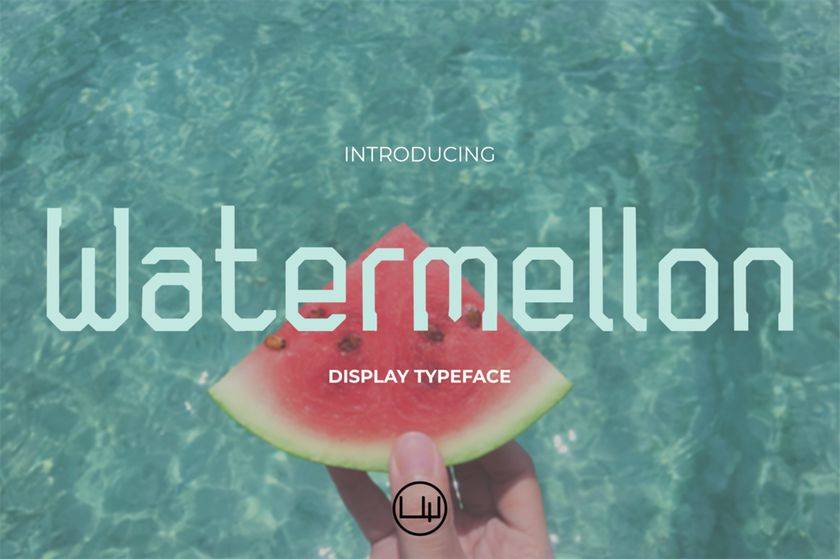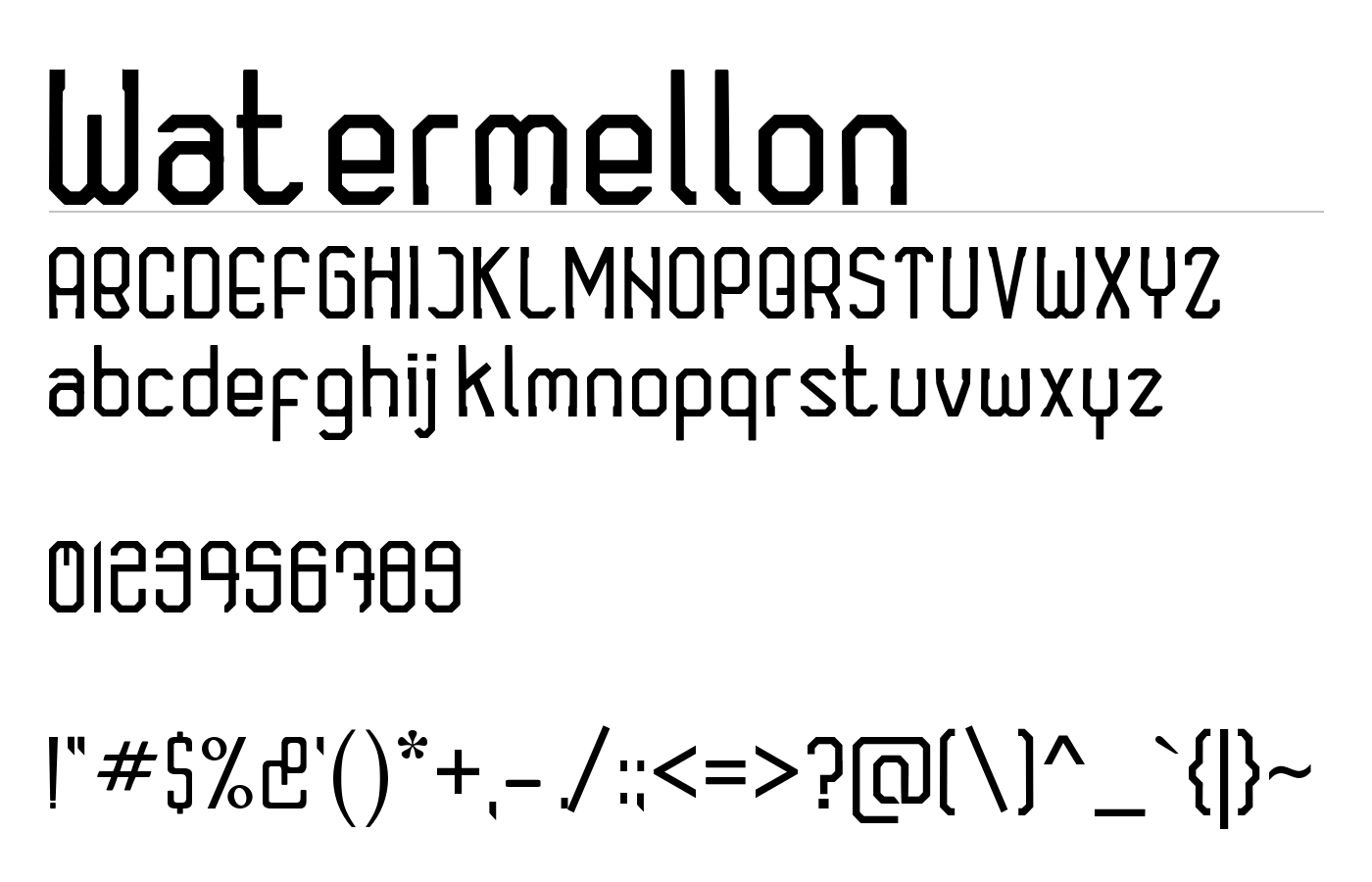
Watermellon is a narrow, geometric sans serif font characterized by its tall, condensed letterforms and consistent stroke weight, giving it a modern and technical feel. Its sharp, angular edges and unusual character shapes create a distinctive, futuristic look ideal for technology or industrial branding. This font works best in headlines and logos where a bold, unique style is needed to grab attention with clarity and precision.
Watermellon Font
About Watermellon Font
| Font family | Watermellon Font |
| Designer | Arvan Fatwa |